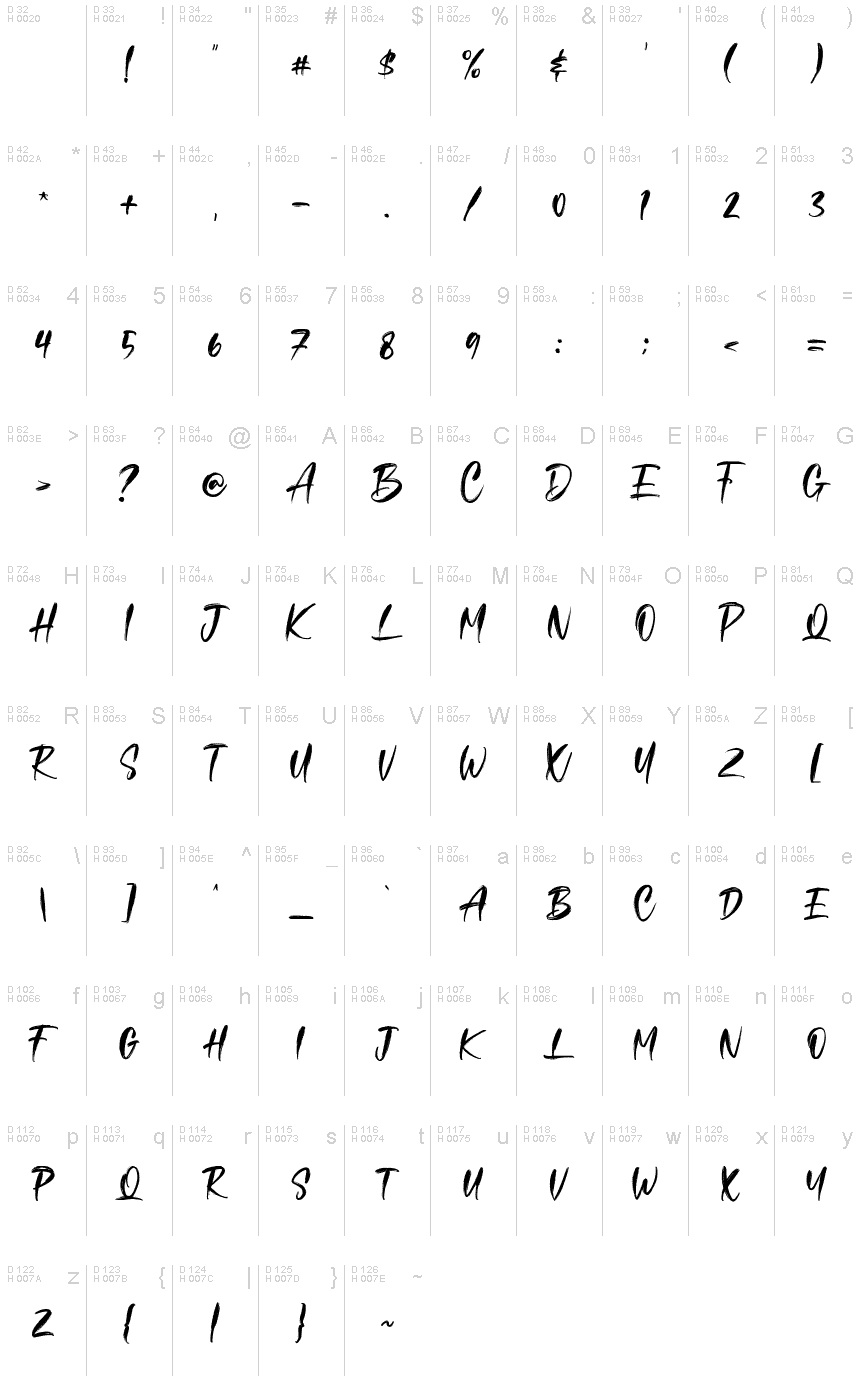
Human Crush
Human Crush, the latest brush font designed by MaulanaCreative, is a versatile and modern typeface perfect for creative projects that require a personal touch. With its distinctive brush strokes, Human Crush adds a unique humanistic feel to any design. This semi-bold font comes in various widths and styles suitable for branding, logos, packaging designs or social media graphics. Use it to create eye-catching titles or headlines that will capture the attention of your audience. Whether you're designing a fashion magazine or a food blog, Human Crush will give your project the personality and character it deserves.